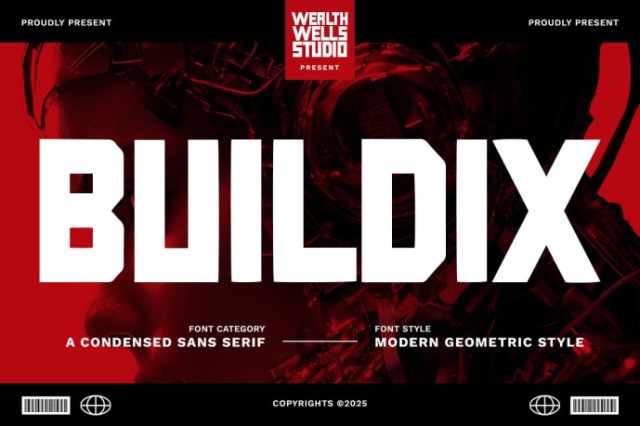
Buildix Sans Serif Font
Buildix Sans Serif Font is a bold and condensed sans serif font designed in a modern geometric style, perfect for high-impact visuals and futuristic branding. With sharp edges and tech-inspired letterforms, this font delivers a sleek and professional look for headlines, posters, user interfaces, and digital products. Its condensed form maximizes space without compromising readability, making it ideal for bold statements in both print and web design.
Whether you’re working on a tech startup identity, a sci-fi game UI, or a clean minimalist poster, Buildix adds a powerful visual punch.